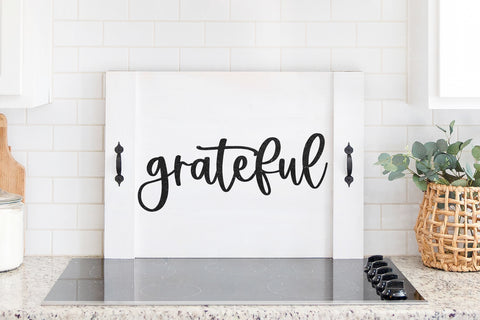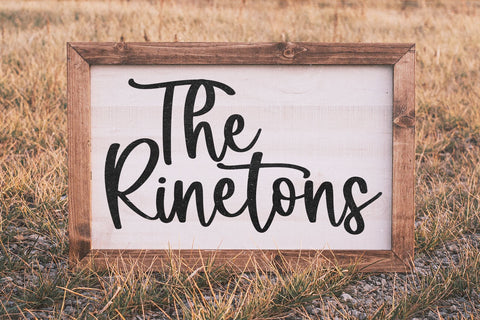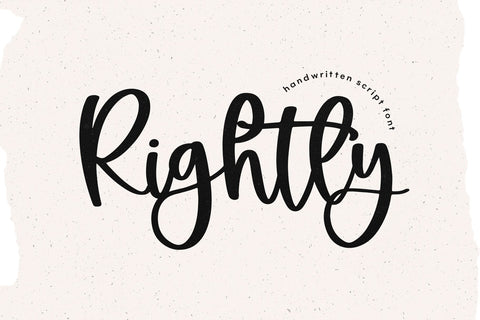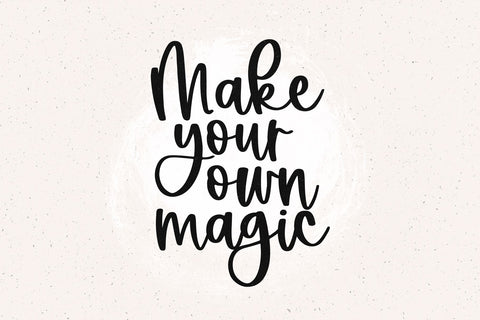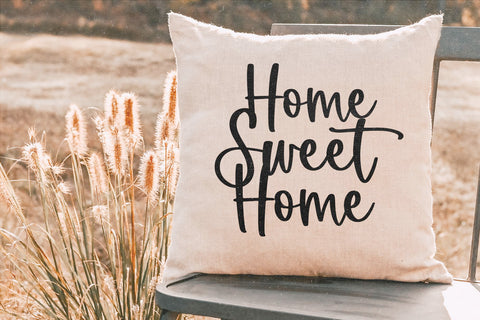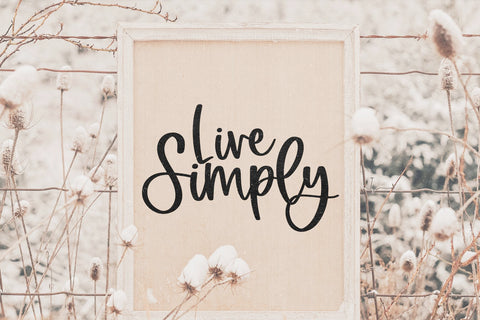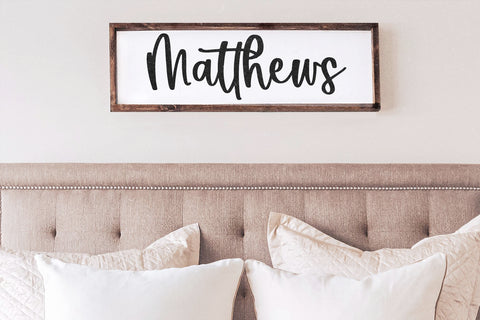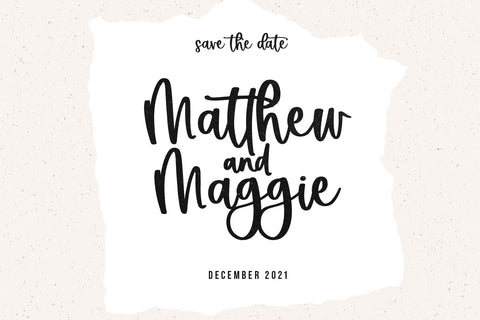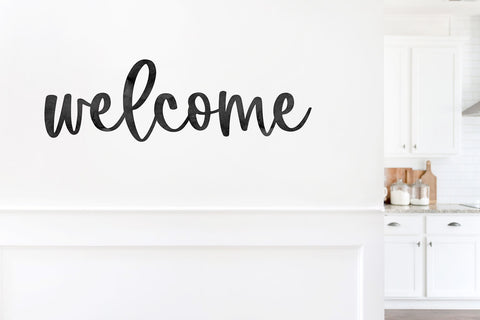
Rightly - Handwritten Script Font
Rightly is a handwritten script font with a modern look!
This font is perfect for all of your farmhouse designs, svg designs, shirts, vinyl, cricut projects and more!